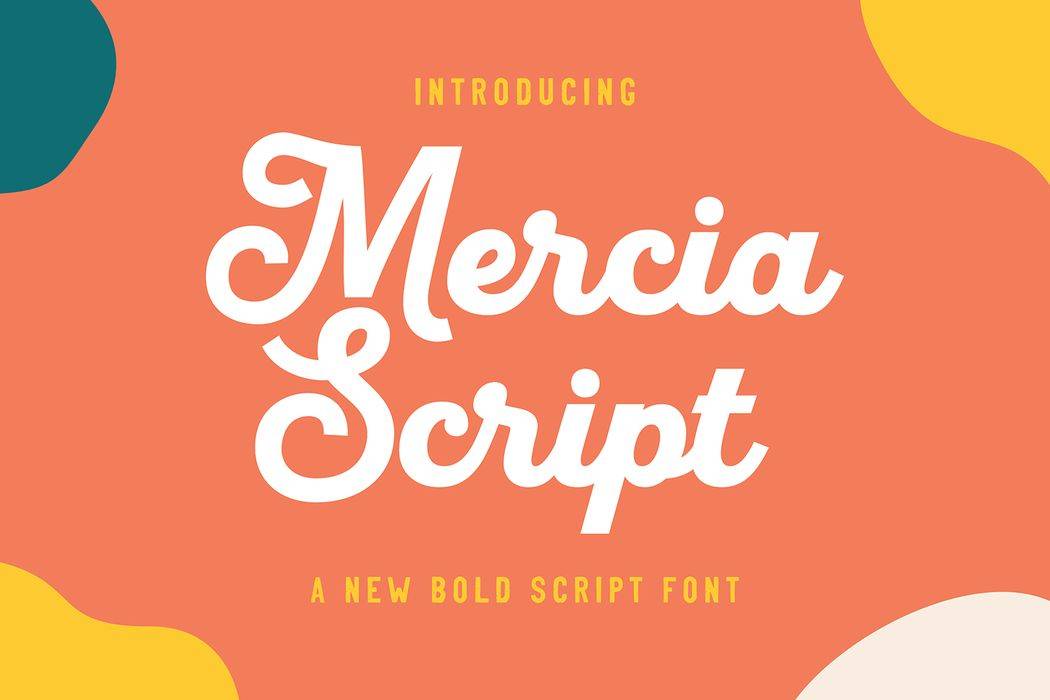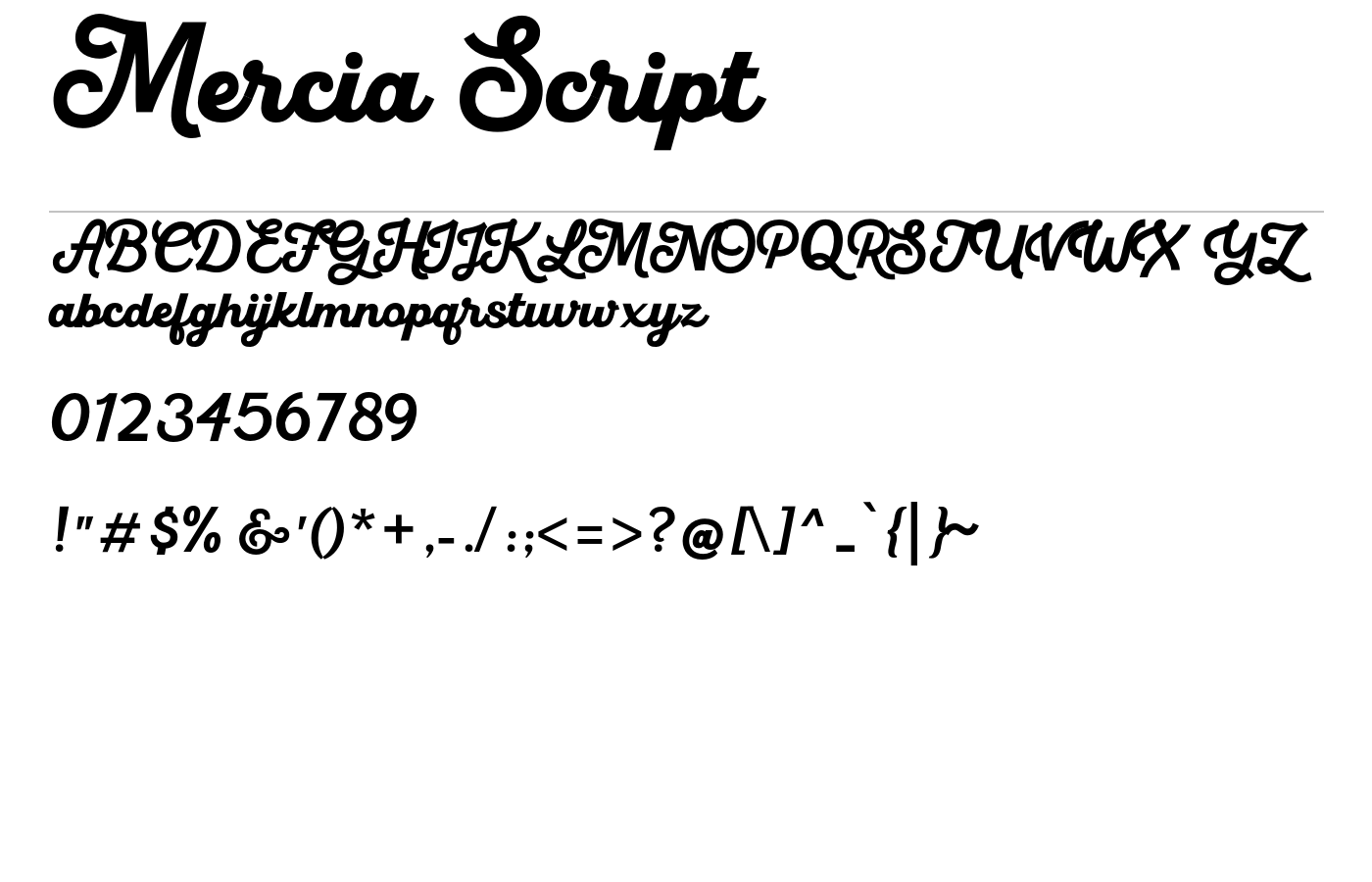
Mercia Script is a bold and lively script font with a vintage flair, featuring smooth, connected strokes and rounded terminals that give it a warm, friendly character. Its high contrast between thick and thin strokes, combined with elegant swashes and a flowing style, make it perfect for branding, logos, and packaging that seeks a nostalgic yet approachable feel. This font works especially well for creative projects that want to evoke charm and personality with a playful, sophisticated touch.
Mercia Font
About Mercia Font